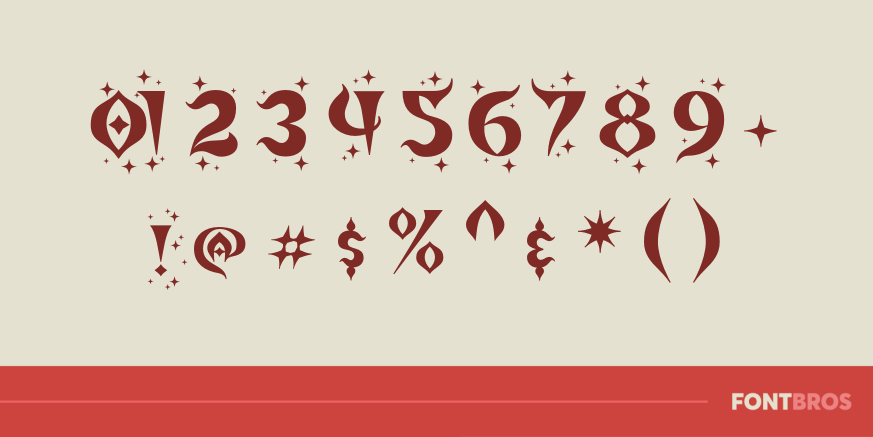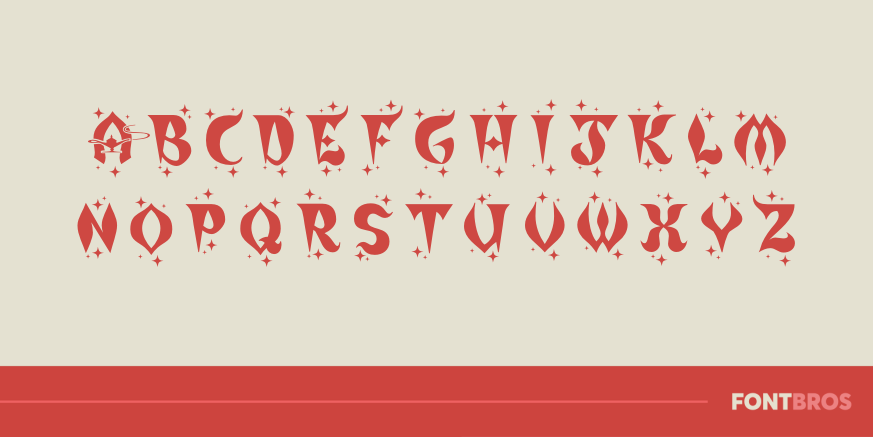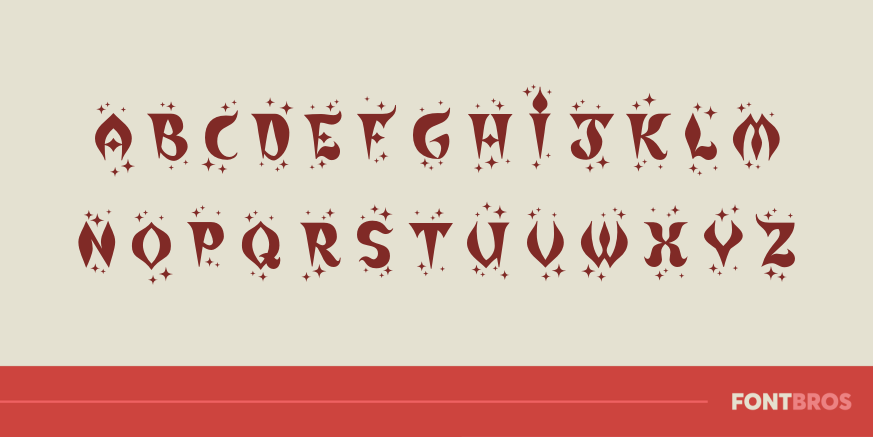
Mirage Zanzibar
Font Family by Font Diner
The Mediterranian night sky shimmers with a jackpot of stars and diamonds! Enjoy this dazzling bejeweled font!